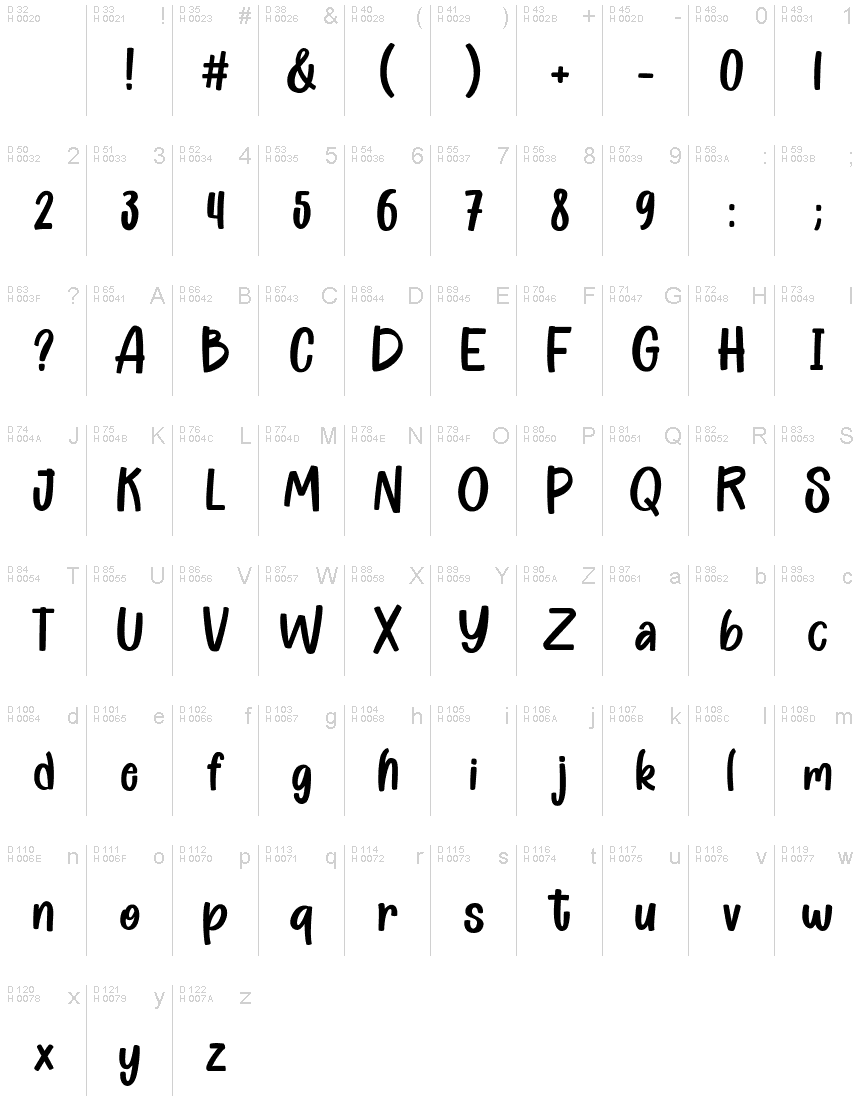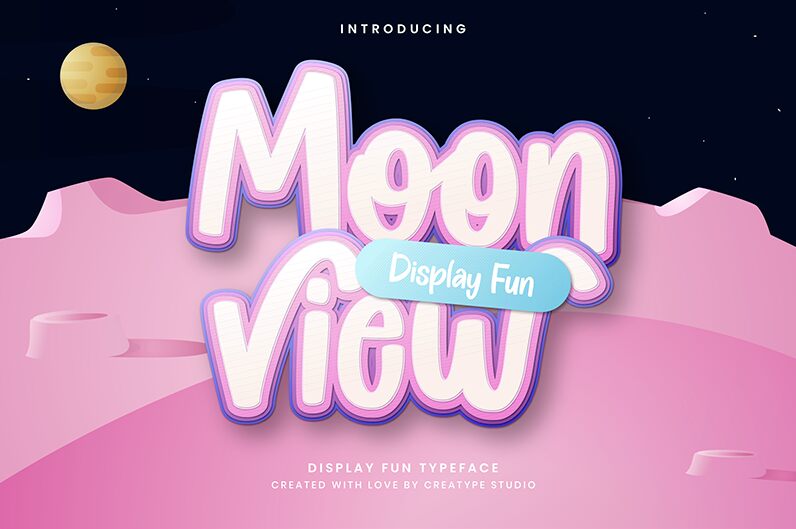
Moonview Regular
Introducing Moonview, a unique display font designed by Rian Rahardi. Combining a comic style with a handwritten touch, Moonview offers an expressive and creative look. Suitable for headings, posters, logos, titles and more, this font is sure to bring your project to life. Whether you're looking for something fun or quirky, Moonview is the perfect choice for any design project!